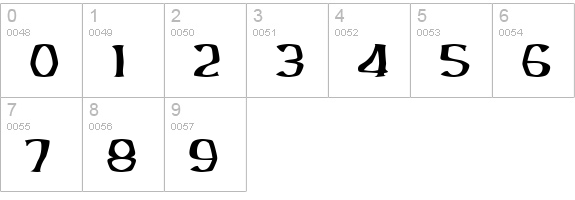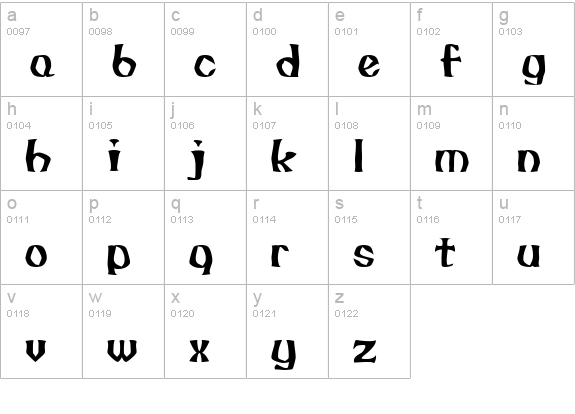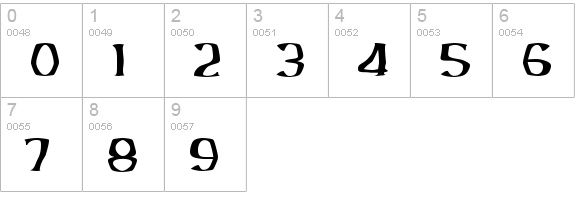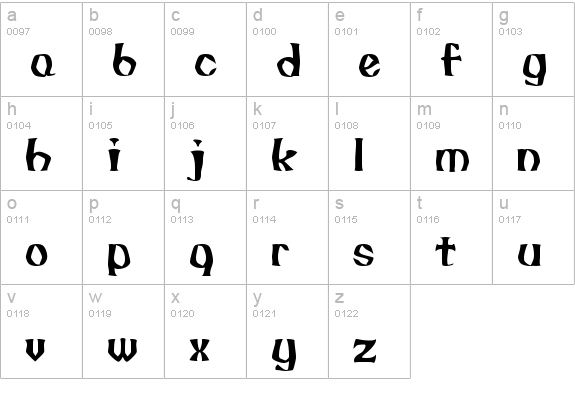
UUeirdieWarp Font Details
UUeirdieWarp font is a captivating and eccentric typeface that is sure to make your designs stand out from the crowd. With its unique and quirky letterforms, this font adds a touch of playfulness and creativity to any project. Its irregular shapes and warped lines give it a distinct and unconventional appearance that is perfect for adding a touch of whimsy to your designs. But that's not all - UUeirdieWarp font is not only visually striking, but it is also completely free! That's right, you can download this font without spending a penny. Whether you are a professional designer looking to add some personality to your work or a casual user in search of a font that stands out, UUeirdieWarp is the perfect choice. To get your hands on this fantastic font, simply head over to FontsMarket.com, where it is freely available for download. FontsMarket.com is a reliable and trusted source for high-quality fonts, and they make it easy to find and download the fonts you need. So why wait? Start using UUeirdieWarp font today and let your creativity run wild!